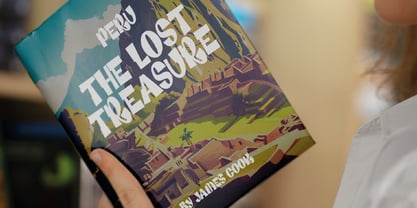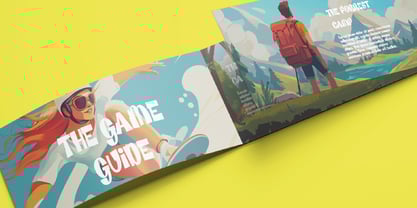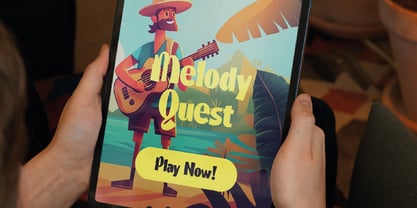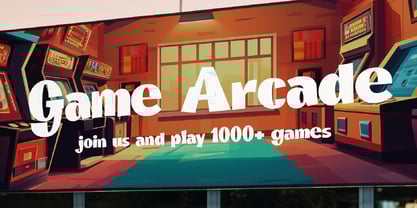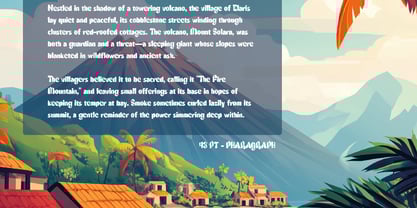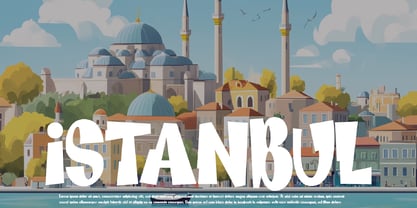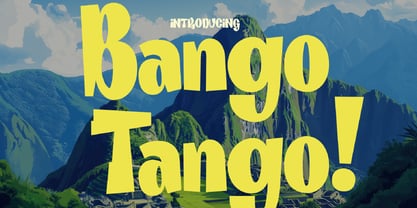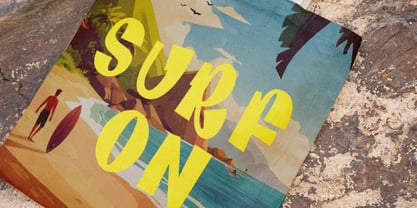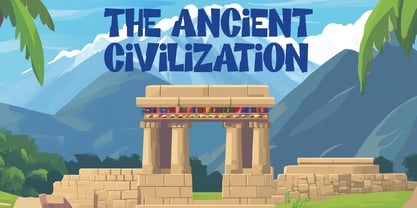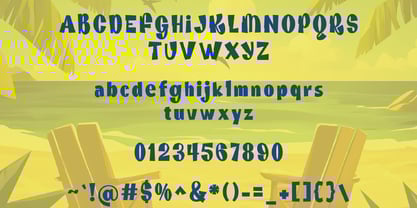
Bango Tango
La famille de polices Bango Tango a été conçue par Igor Ovsyannykov et publiée par Hipfonts. Bango Tango contient 1 styles.
Bring your designs to life with Bango Tango, a fun and playful sans-serif typeface bursting with personality and charm. With its smooth curves and cheerful vibe, this font is designed to make your projects pop with positivity and energy.
Whether you're creating for kids, events, or any project that needs a touch of joy, Bango Tango adds a delightful flair to your work. Its versatility and lively style make it the perfect choice for spreading smiles and good vibes.
Get creative and let Bango Tango bring the fun to your designs!